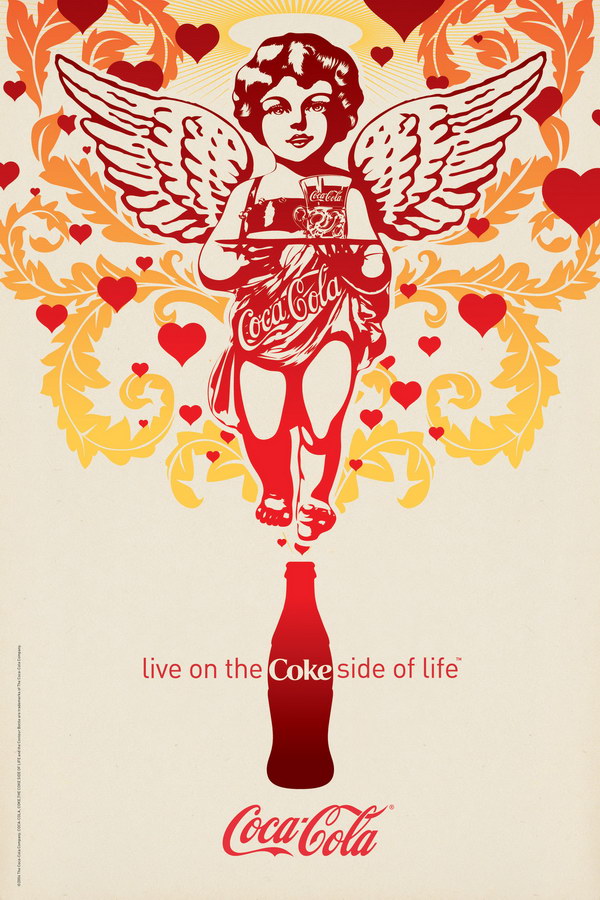
The Coke Side of Life Font
CampaignThe Coke Side of Life was a marketing campaign launched by Coca-Cola in 2006. It was a global campaign that aimed to promote the brand as a way to bring people together and create positive experiences.
FF Din Regular, with the letter "i" set in alternate, is most likely the primary font used in the slogan. FF Din, a multi-weight font family created by Albert Jan Pool, comes in 20 weights, from Light to Black in Condensed and Medium with italics. To know more about the font click here.